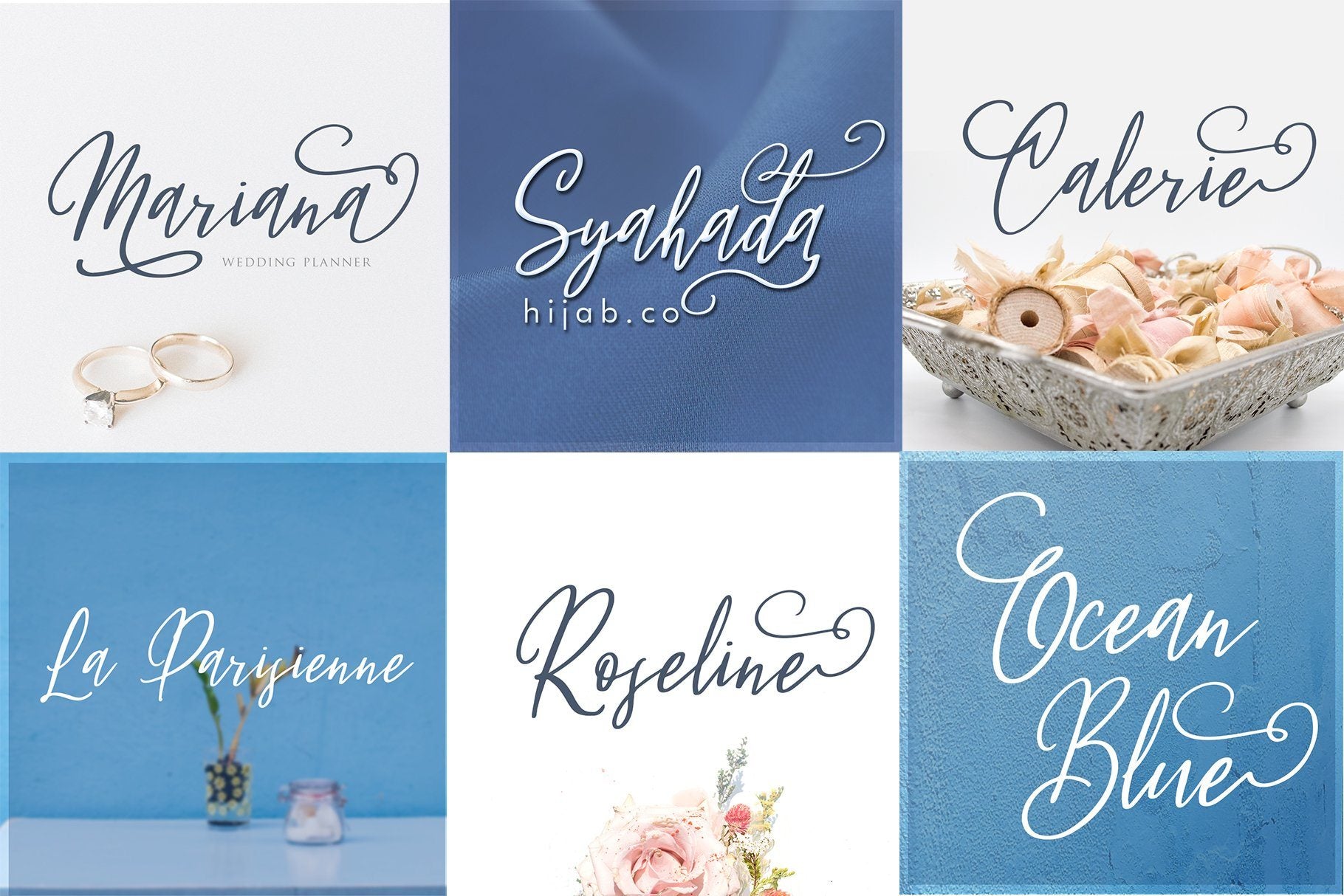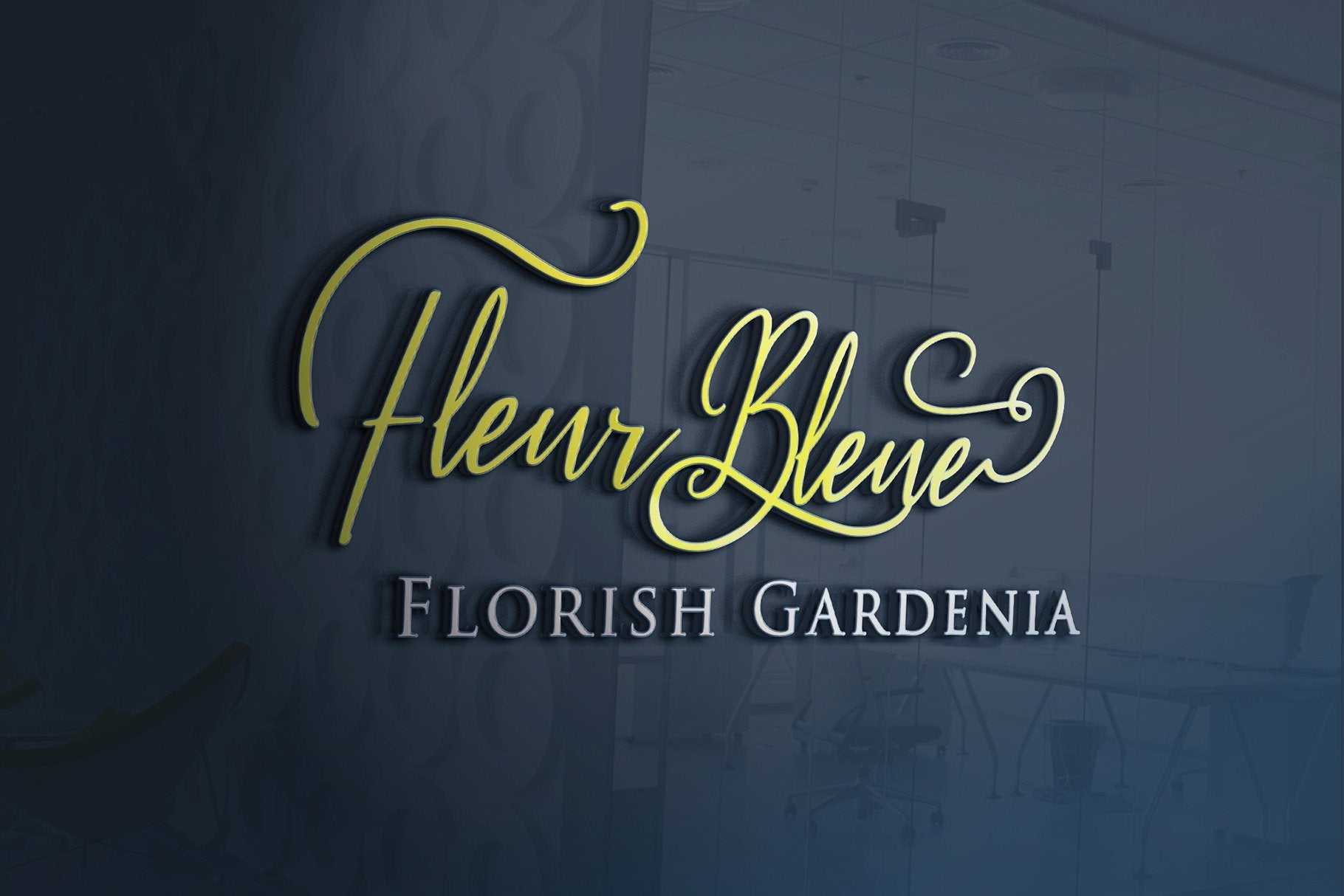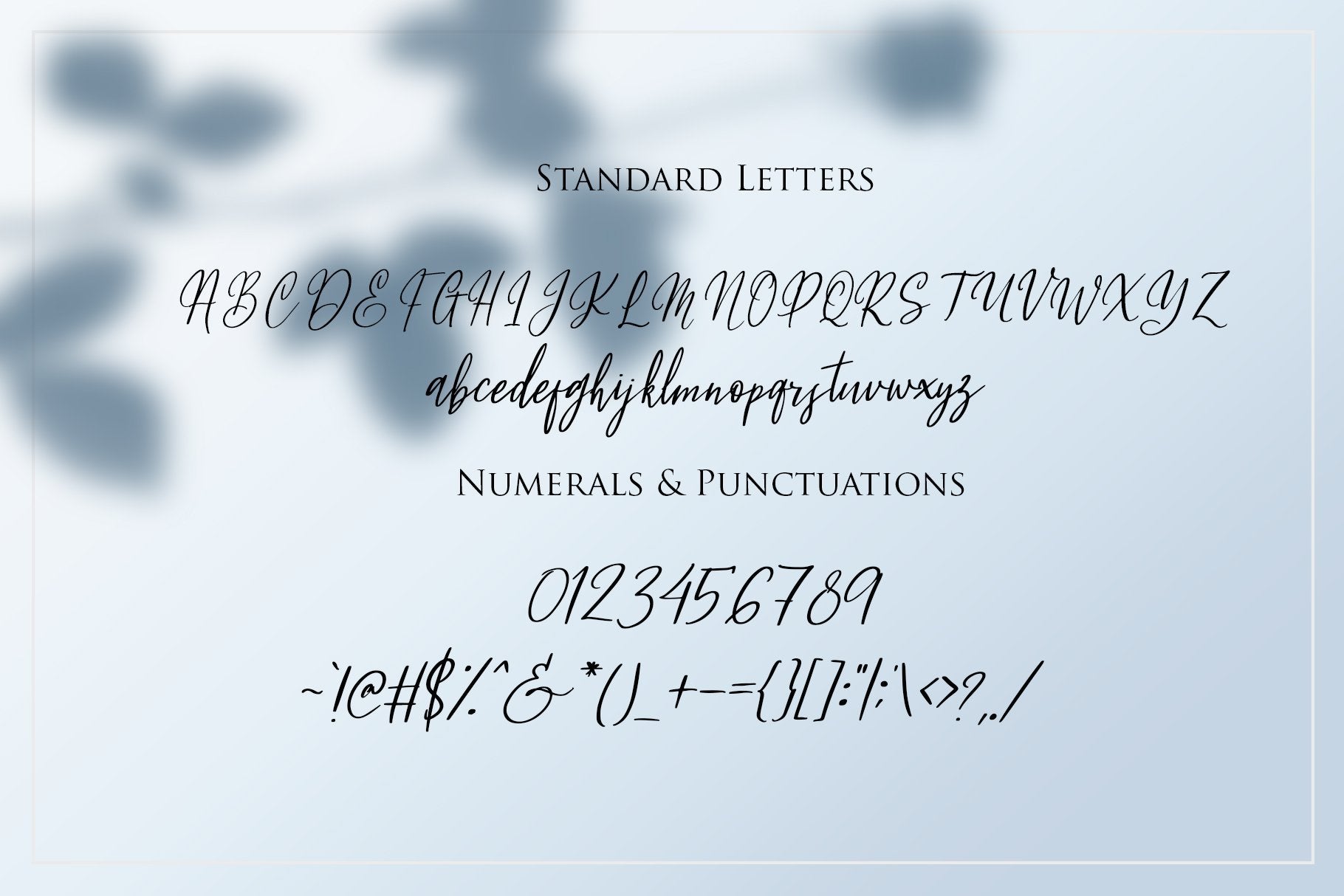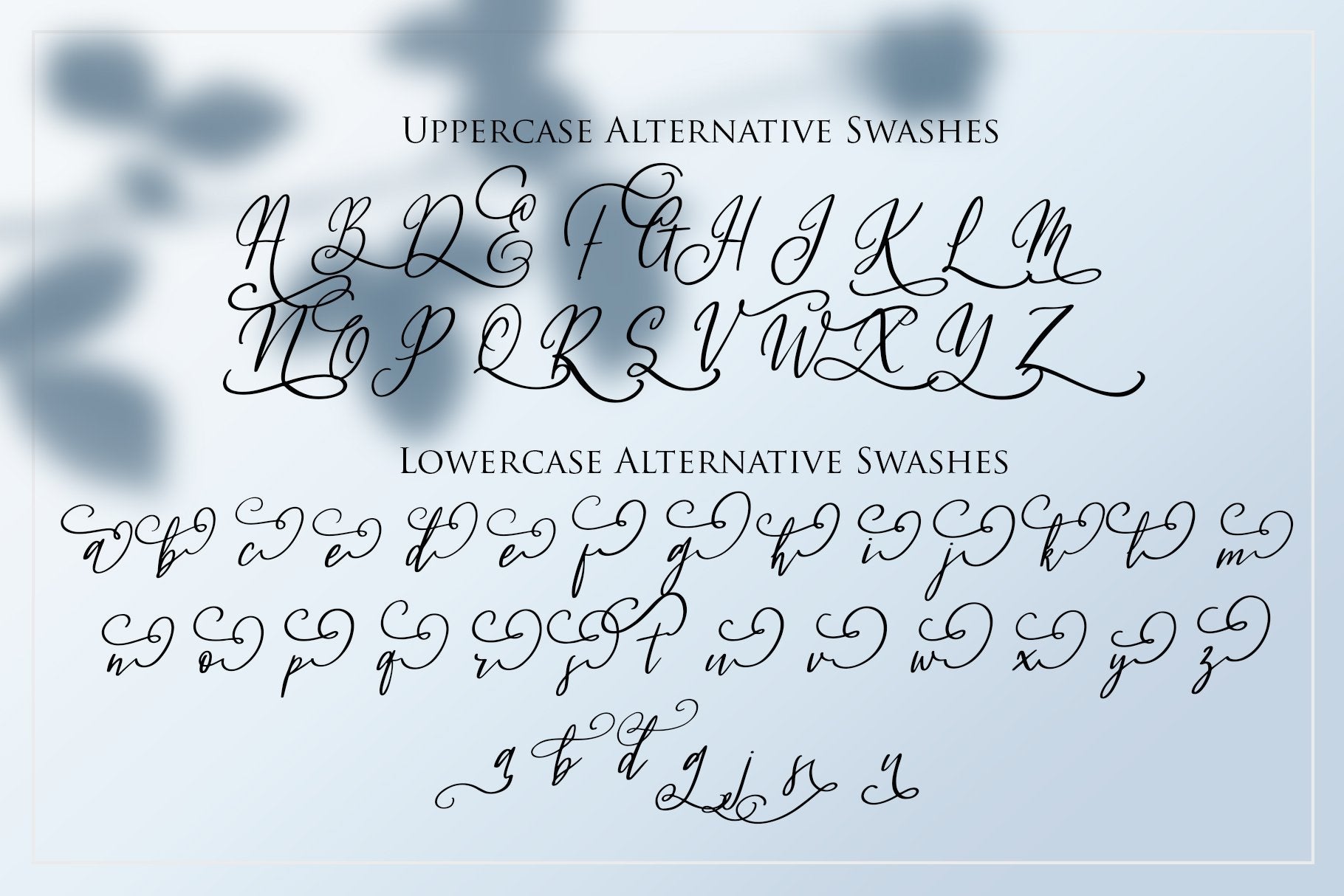
About Fleur Bleue – Beautiful Romantic Font
Fleur Bleue, the Beautiful Romantic Font. It’s a natural handwritten script beautified with alternative swashes that gives the romantic touch. Great choice for wedding party invitation, quotes, cards, logo, printing art, social media posts, packaging, and much more. Fleur Bleue features : Uppercase, lowercase, numerals and symbols Alternative Swashes Multilingual Support Fleur Bleue files : Fleur Bleue OTF, TTF, WOFF Hope you enjoy with this font, every support are appreciated. Happy designing and Stay Creative!